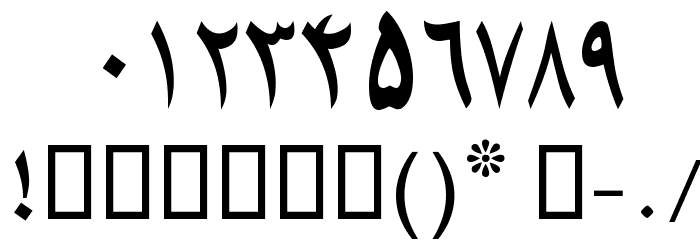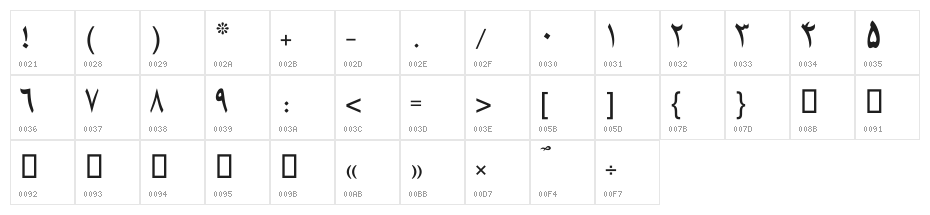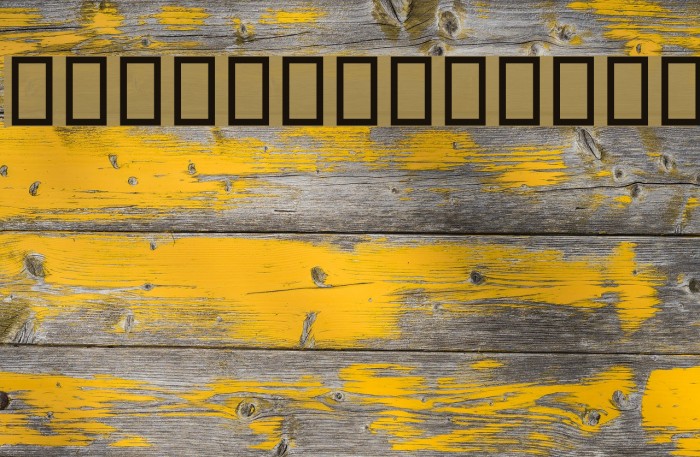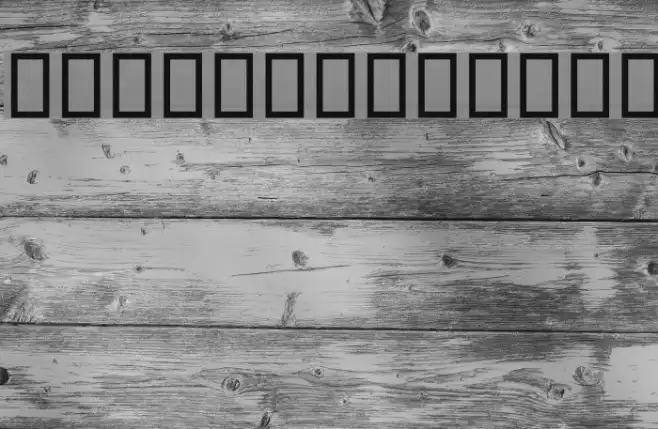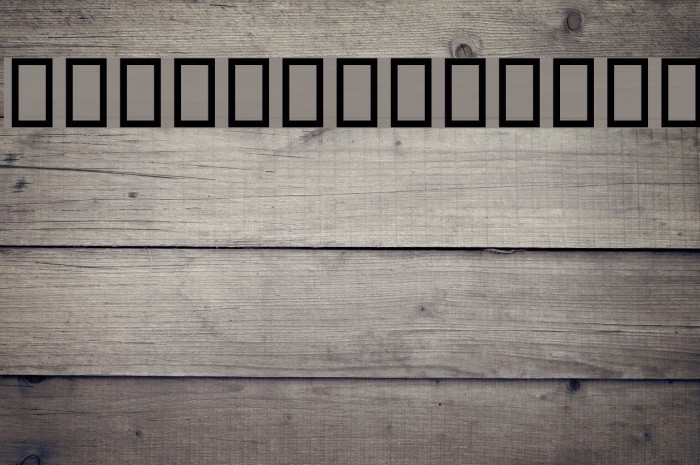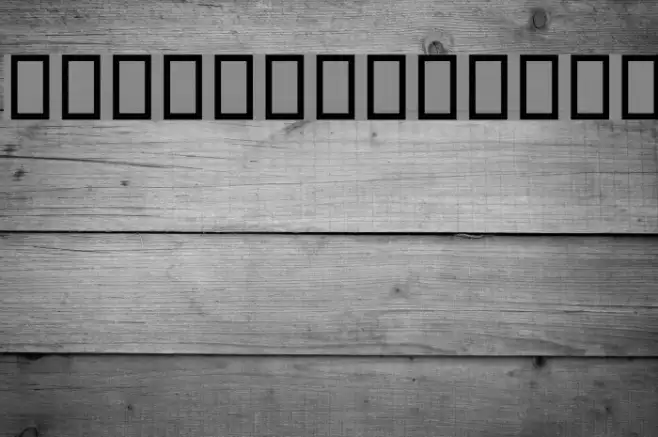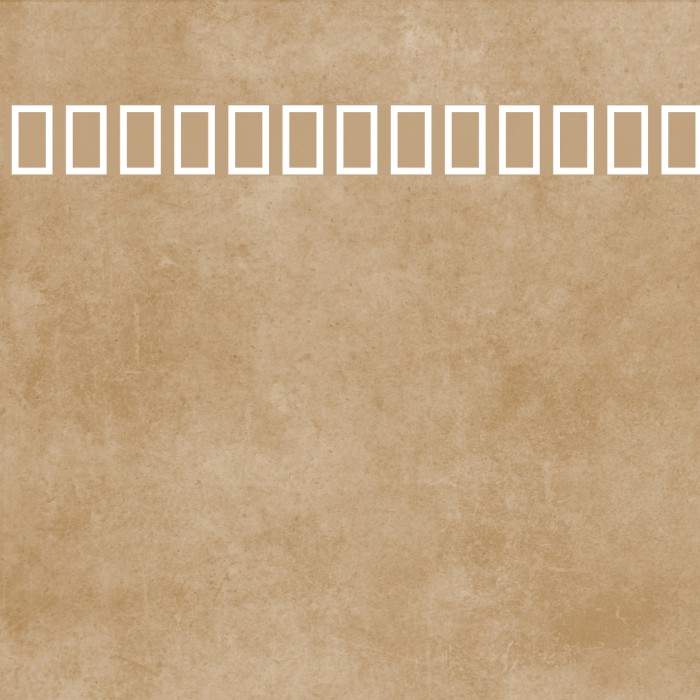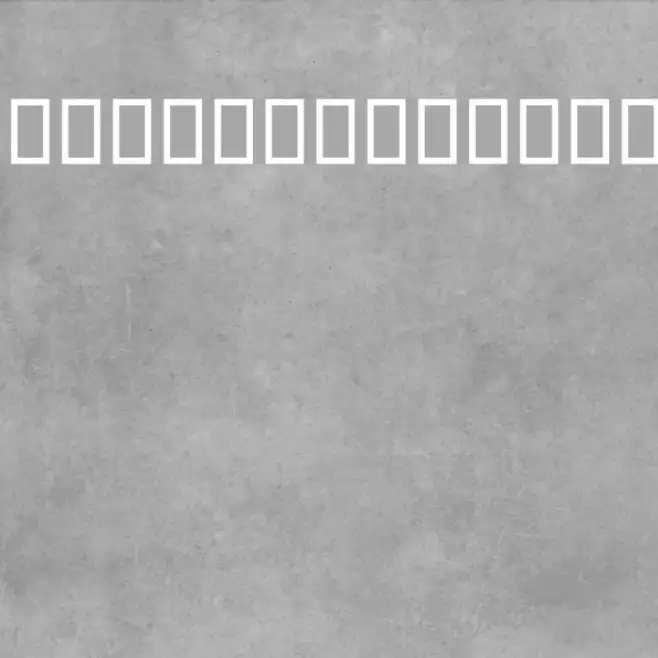
Nashriyah Font
Nashriyah Description
This font features a distinctive and artistic style, characterized by its elegant curves and flowing lines. The numerals are particularly striking, with a calligraphic flair that adds a touch of sophistication. The special characters are designed with unique embellishments, enhancing the overall aesthetic. This font is ideal for projects that require a blend of tradition and creativity, making it suitable for invitations, branding, and decorative purposes.
| Proposed Projects | Ideal for wedding invitations, luxury branding, decorative signage, and artistic projects. |